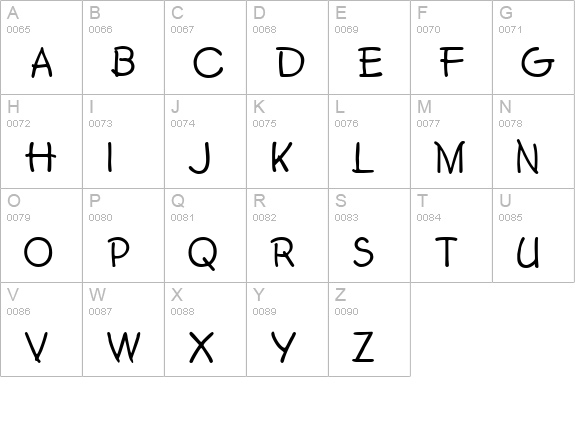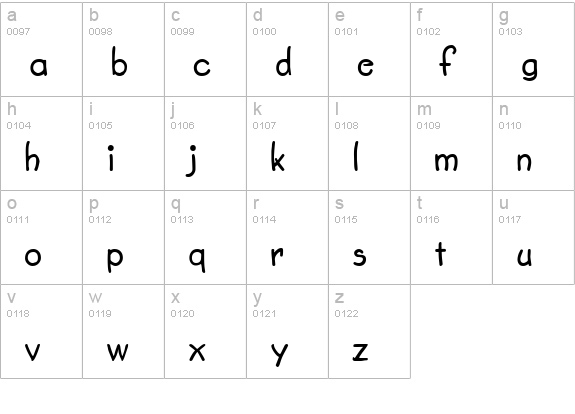
Second Grader Font Details
Introducing Second Grader font, a fun and playful typeface that is perfect for all your creative projects! This delightful font captures the essence of youthful energy and excitement, making it an excellent choice for children's books, posters, and school materials. With its rounded edges and friendly appearance, Second Grader font is sure to bring a smile to anyone's face. But what makes Second Grader font even better? It's absolutely free! That's right, you can freely download this fantastic font at FontsMarket.com. Whether you're a student working on a school project or a teacher creating engaging educational materials, Second Grader font is here to lend a hand. This font is incredibly versatile, allowing you to create captivating headlines, eye-catching titles, and even personalized greetings. Its clean and legible design ensures that every letter is easily readable, making it ideal for young readers and learners. With Second Grader font, you can let your imagination run wild and add a touch of whimsy to your designs. Its bold and vibrant characters will make your words pop off the page and capture the attention of your audience. So why wait? Download Second Grader font for free today at FontsMarket.com and let your creativity soar! Whether you're crafting a birthday invitation, designing a classroom poster, or simply adding a touch of fun to your projects, Second Grader font is the perfect choice for all your creative endeavors. Let your words come alive with this delightful font and watch as it brings a sense of joy and excitement to everything you create.